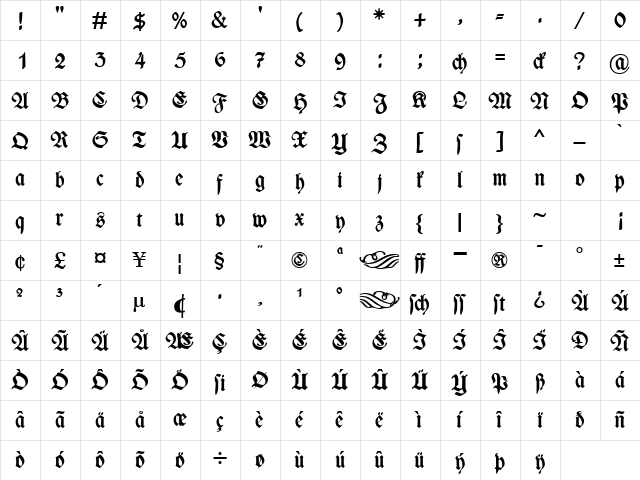
Wieynk Fraktur Bold
| Designer | Dieter Steffmann |
Design Context for Wieynk Fraktur Typeface
Wieynk Fraktur channels the dramatic heritage of Fraktur and Gothic scripts, bringing a sense of historical gravitas to any design. Its bold stroke weight gives it real presence on the page.
A natural fit for music packaging, gothic editorial design, and any project that needs historical weight.
Font Pairing: Pair with a clean neutral sans-serif for body copy to let Wieynk Fraktur's character lead without overwhelming the composition.
Pro Tip: Reserve Wieynk Fraktur for display and logo use — pair it with a clean sans-serif for body copy to prevent the composition from feeling oppressive.